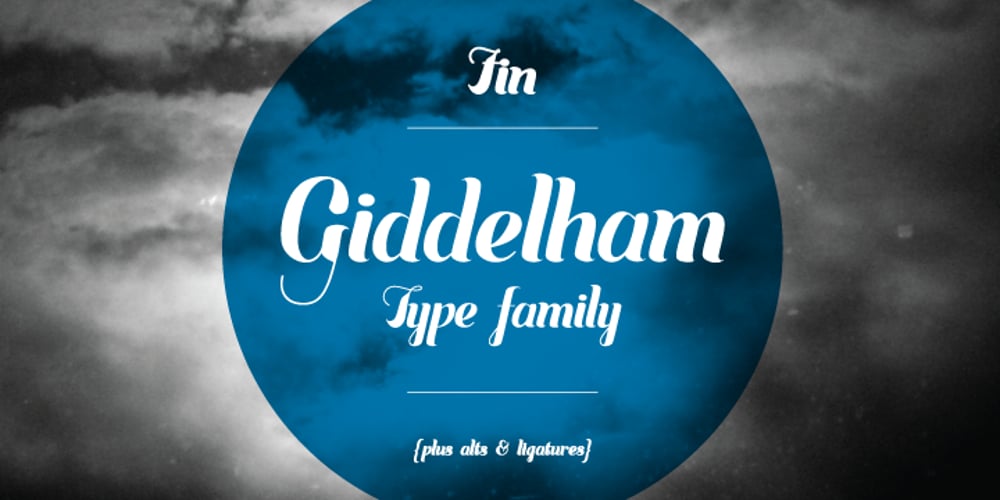
Giddelham
Giddelham font
Giddelham Font Family was designed by Adam Greasley and published by wearecolt. Giddelham contains 2 styles and family package options. Giddelham is classy curvy and italic. A bold set of characters which flow in to an elegant, simple flourish. Giddelham offers several ligatures to help the flow and shape of your words. Giddelham is ideal for titles, subheadings and makes for a great start point for a sexy logo.